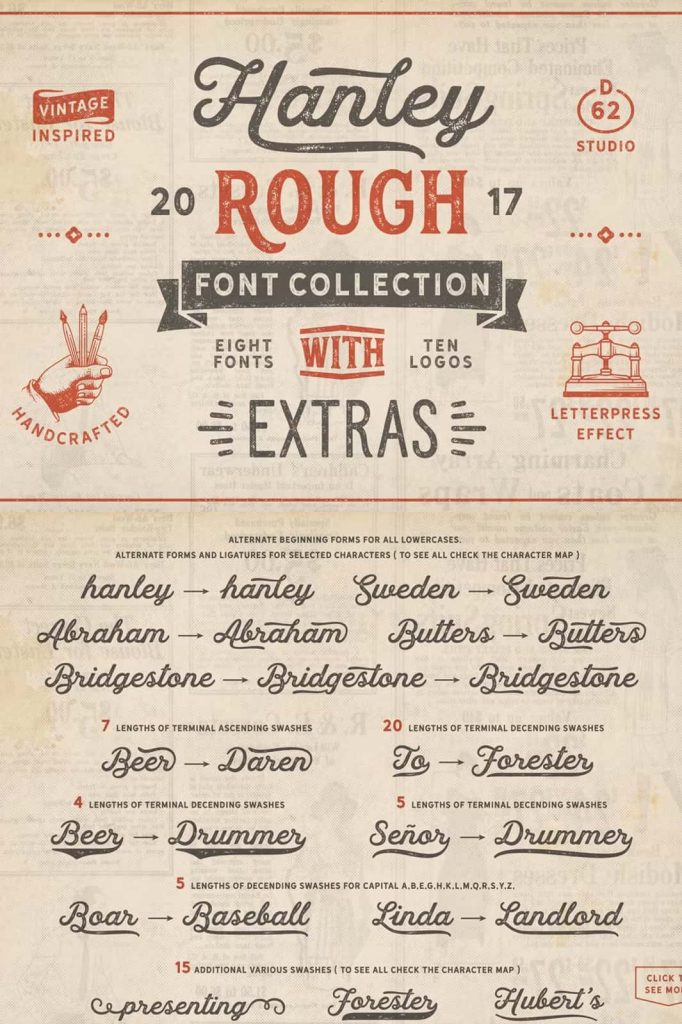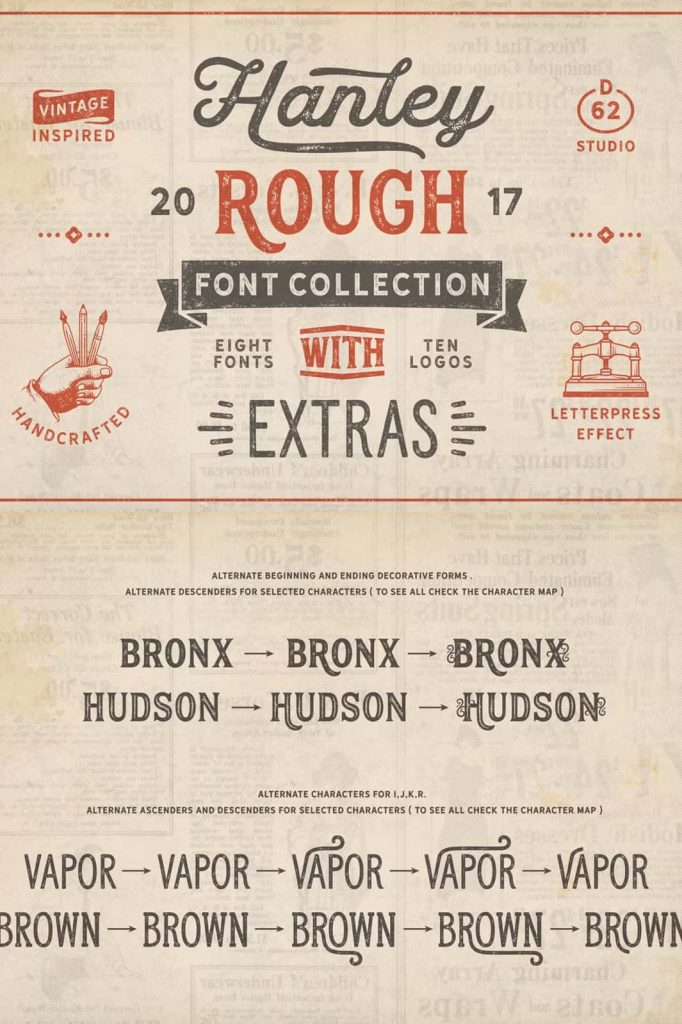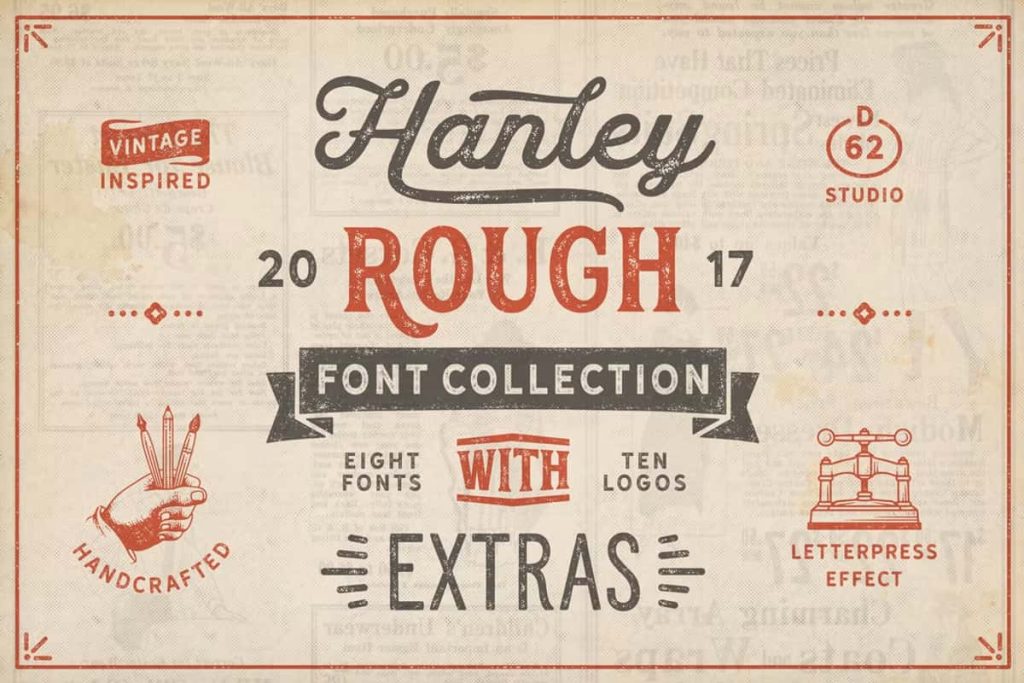
Hanley Rough Font Collection
Hanley Rough Font Collection from District 62 is the new letterpress effect version of our popular Hanley Font Collection with a new BONUS Signature font. It consists of 8 fonts and two vector extras files that work extremely well together for an authentic vintage look with a modern vibe.